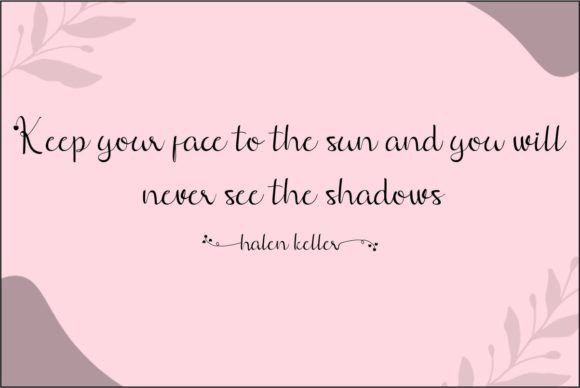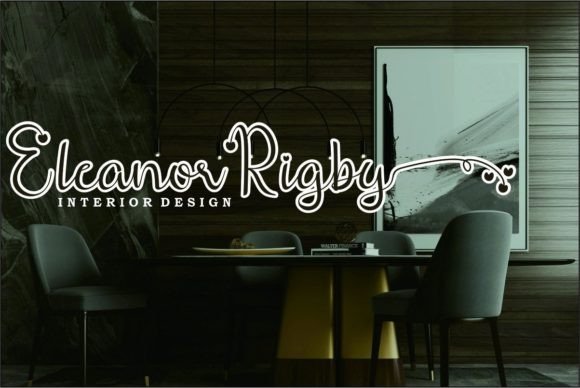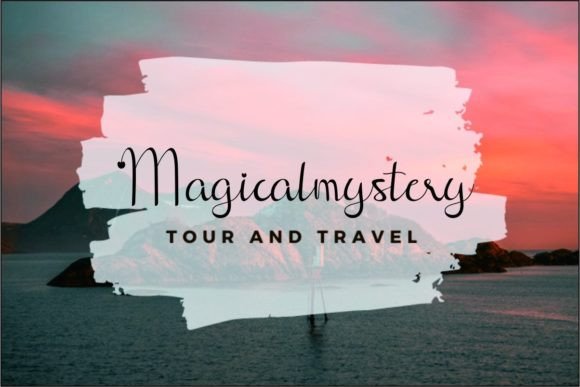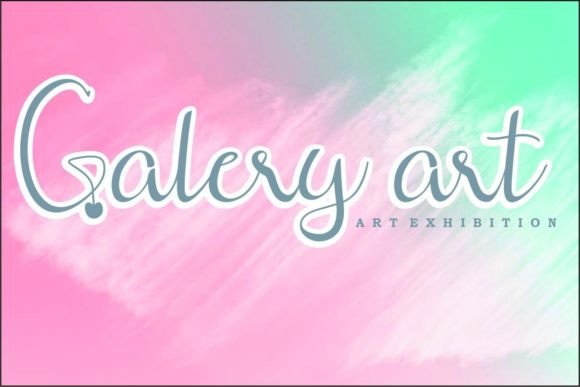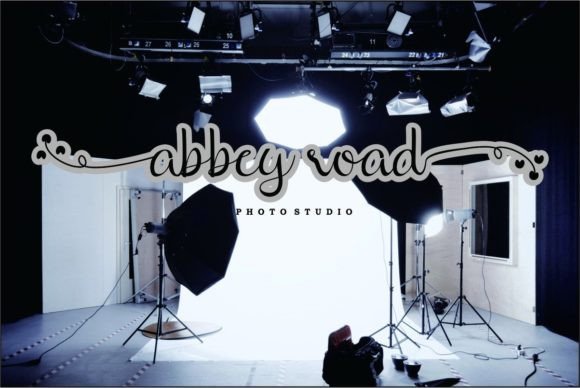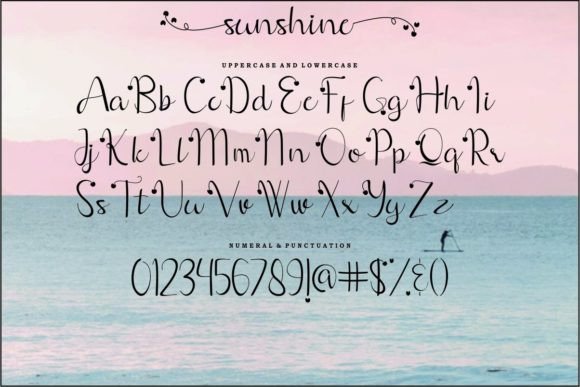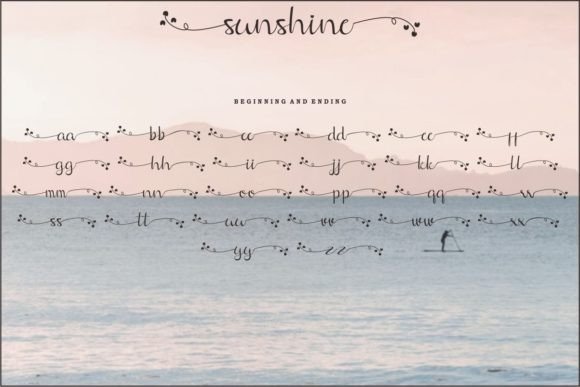
Sunshine emerges as a loving script font that seamlessly blends a contemporary feel with perfect form, drawing inspiration from the timeless essence of affection. Designed to add a joyful and romantic touch to your projects, Sunshine is a versatile font perfectly suited for branding, logos, wedding materials, greeting cards, fashion, lookbooks, marketing promotions, or whenever you aim to achieve a fancy, elegant yet casual aesthetic.
The font’s loving script style exudes warmth and charm, making it an ideal choice for projects that require a touch of emotion and sincerity. Whether you’re working on a wedding invitation or creating a stylish logo, Sunshine brings a romantic and joyful quality that resonates with a sense of celebration.
Sunshine’s contemporary feel ensures its relevance in a variety of design contexts. Its perfect form contributes to a visually appealing and well-balanced script that can adapt seamlessly to diverse applications. From fashion-related projects to marketing promotions, Sunshine maintains an elegant yet casual demeanor that suits a range of visual styles.
The font’s versatility extends to its use in greeting cards, where it effortlessly captures the sentiment of affection and warmth. Sunshine’s script adds a personal and heartfelt touch to your messages, making it an excellent choice for expressing emotions in a visually pleasing manner.
For branding and logo design, Sunshine stands out as a distinctive choice that sets your identity apart. Its loving script forms create a unique and memorable brand presence, reflecting a blend of sophistication and approachability. The font’s ability to convey elegance while retaining a casual vibe makes it a valuable asset in creating a lasting visual impact.
Sunshine’s PUA encoding enhances its accessibility, allowing users to effortlessly access a rich array of glyphs and swashes. This feature not only enriches the creative possibilities but also streamlines the design process, ensuring that incorporating unique elements into your projects is a seamless and enjoyable experience.
In conclusion, Sunshine is more than just a font; it’s a design companion that infuses your projects with love, joy, and a contemporary flair. Its loving script style, perfect form, and versatility make it an excellent choice for a wide range of applications. Whether you’re working on branding, marketing, or expressive greeting cards, Sunshine’s PUA encoding ensures that you can easily access its charming glyphs and swashes, adding a touch of elegance to your creative endeavors.